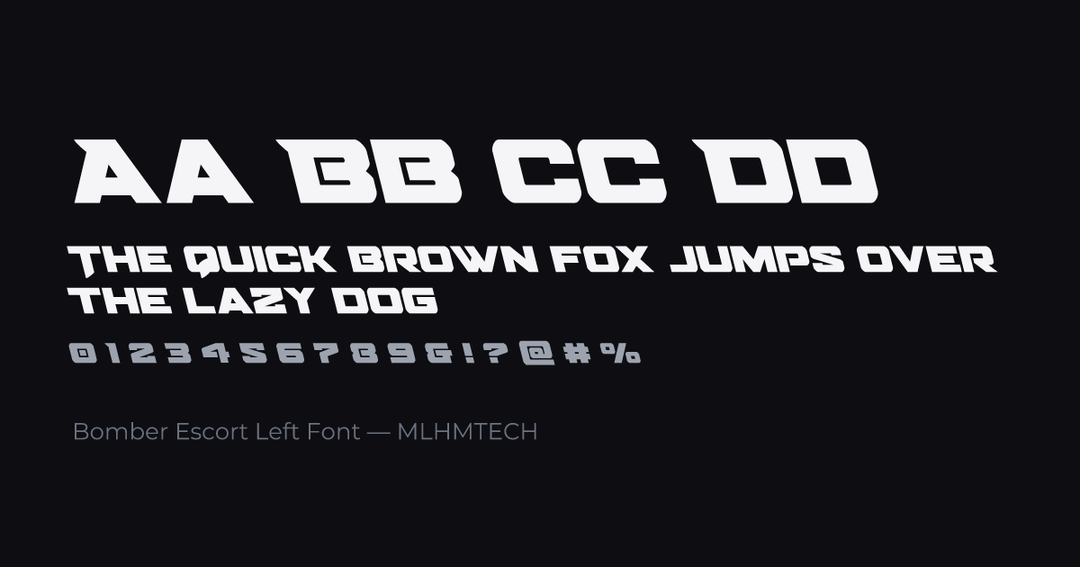
Bomber Escort Left Font
Bomber Escort Left is a handpicked font that adds a bold, distinctive touch to your designs. Ideal for headlines, branding, and creative projects.
Bomber Escort Left is a unique typeface selected for its strong character and versatility. Whether you're designing a logo, poster, or social media graphic, this font brings a professional edge to your work. Its clean lines and balanced proportions make it suitable for both print and digital media.